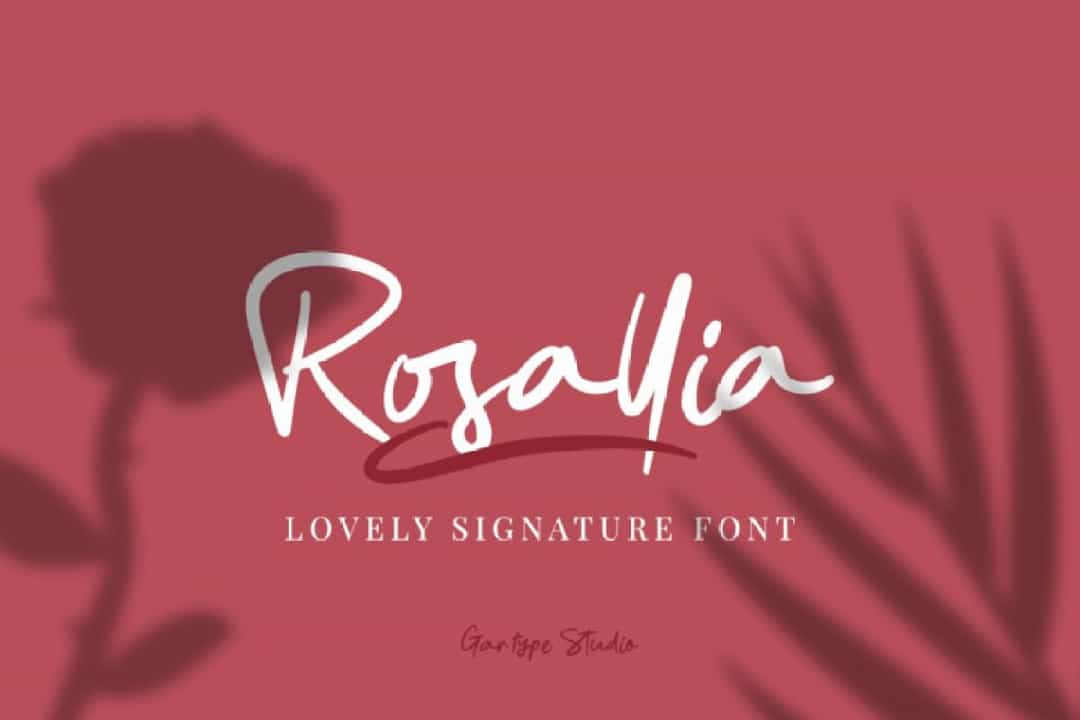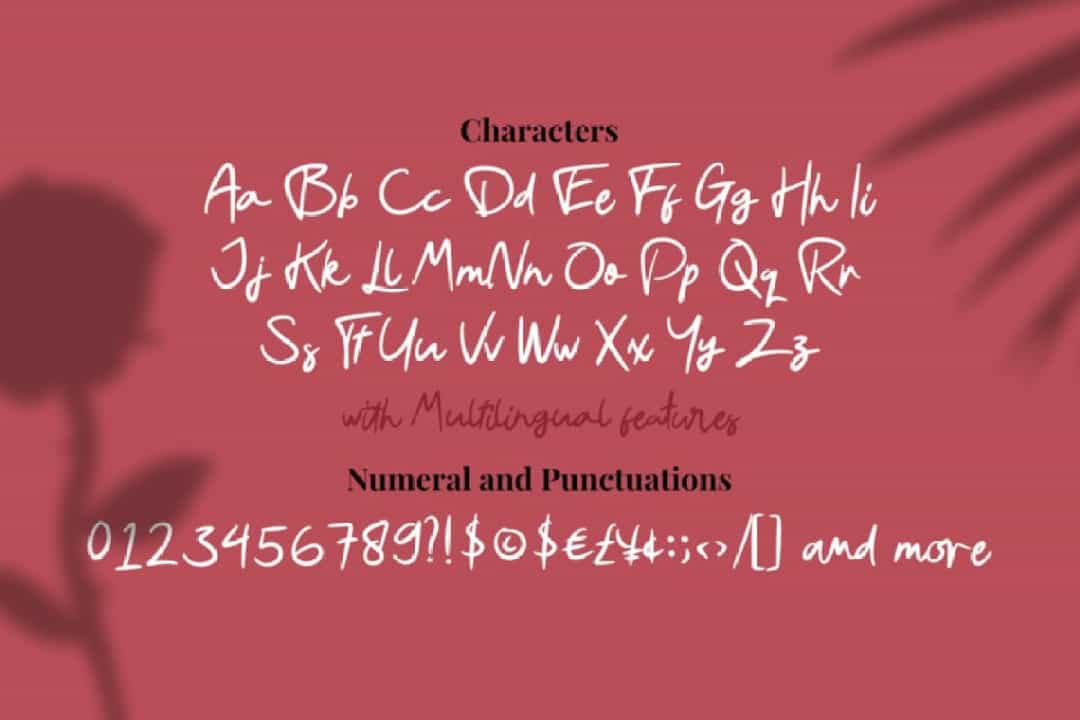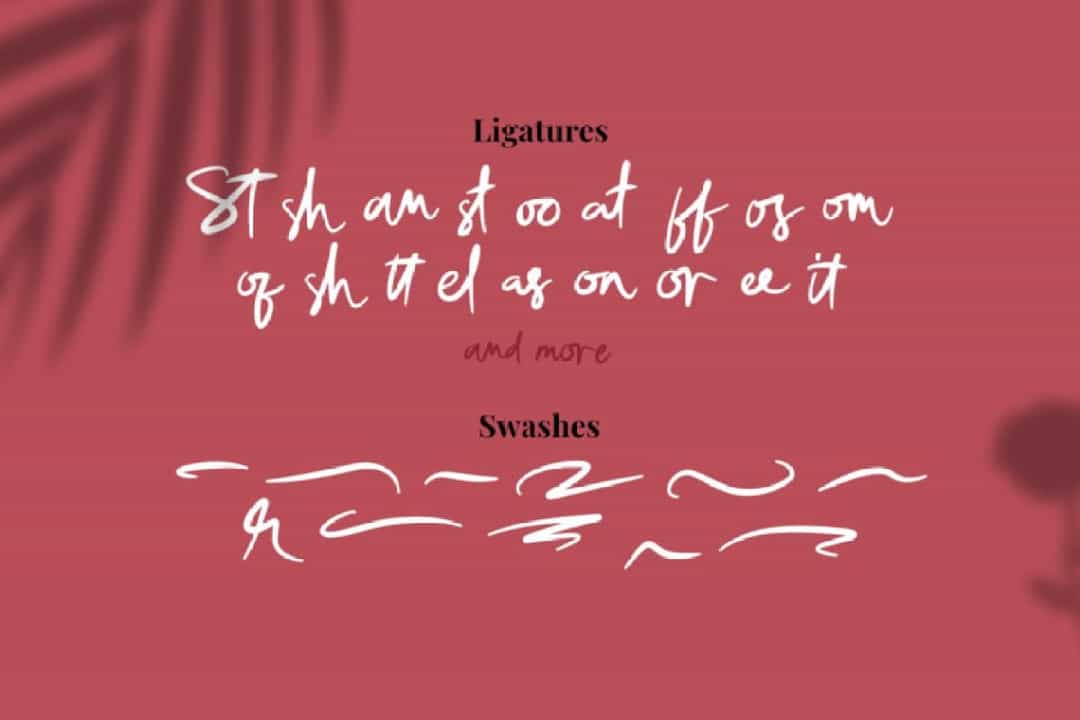
Have you an idea what it means to love without speaking? This is the reason why True Affection can be expressed through font; thus Rosallia GT was designed to represent your emotions and needs visually. In addition, Rosallia GT is provided with an interesting swash for an extra cutting edge look.